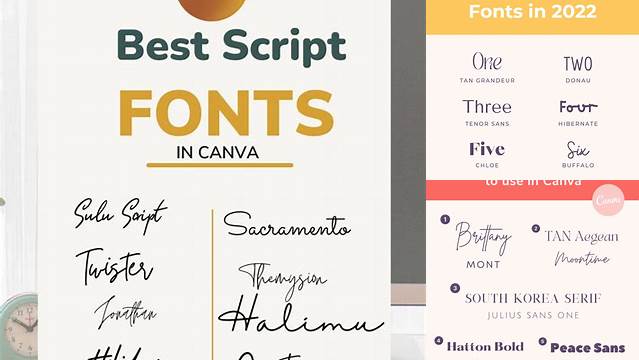
Download & Use Custom Fonts On Canva: A Simple Guide
Hey there, design enthusiasts! Ever wondered how to jazz up your Canva creations with unique fonts that scream you? Well, you're in the right place! Today, we're diving headfirst into the wonderful world of custom fonts on Canva. We'll cover everything from downloading fonts to seamlessly integrating them into your designs. So, grab your favorite beverage, get comfy, and let's unlock the secret to typographic awesomeness! Let's explore how to download fonts to use on Canva in a way that's super easy and fun.
H2: Understanding Custom Fonts: Why They Matter for Your Canva Designs
Alright, before we get our hands dirty with the actual how to download fonts to use on Canva process, let's chat about why custom fonts are such a big deal, yeah? Think of your brand, your personal style, or even just a cool project you're cooking up. Default fonts are like wearing the same basic tee as everyone else – fine, but not exactly making a statement. Custom fonts, on the other hand, are like that killer jacket that makes you stand out. They add personality, professionalism, and that special je ne sais quoi that elevates your designs from “meh” to “wow!”.
Custom fonts give you complete control over your typography. You're not limited to Canva's library (though, let's be real, it's pretty solid!). You can choose fonts that perfectly align with your brand's voice, the mood you want to create, or the specific aesthetic you're aiming for. Imagine a sleek, modern font for a tech company versus a whimsical, hand-drawn font for a children's brand. The right font choice speaks volumes before a single word is even read. It creates a cohesive experience, making your audience feel like they're getting the real you, your brand, or the project. Furthermore, using custom fonts can drastically improve your brand recognition. Consistent use of the same font across all your marketing materials – website, social media, presentations, and more – creates a visual identity that's instantly recognizable. This consistency builds trust and strengthens your brand's presence in the minds of your audience. So, when someone sees that specific font, they automatically think of you. That's the power of custom fonts.
Beyond branding, custom fonts also open up creative possibilities. You can use fonts to create visual hierarchies, emphasize important information, and guide the reader's eye. You can combine fonts to add layers of depth and interest to your design. Think about pairing a bold headline font with a clean body font to create a design that is both visually engaging and easily readable. It’s like creating a symphony where each font plays a unique role in the overall composition. Finally, custom fonts show that you care about details. It's a signal to your audience that you've put in the time and effort to create something special. It tells them that you're not just slapping together a design; you're crafting a visual experience. This attention to detail can make a huge difference in how your designs are perceived and remembered. So, whether you are a small business owner trying to leave a lasting impression, a social media enthusiast looking to stand out from the crowd, or a student working on a project, custom fonts are your secret weapon. They are how to download fonts to use on Canva and transform your designs from average to absolutely amazing.
H2: Finding Your Perfect Fonts: Where to Discover Downloadable Treasures
H3: Exploring Free Font Resources for Budget-Friendly Designs
For the budget-conscious designer or anyone looking to experiment without breaking the bank, free font resources are a lifesaver. Let's dive deeper into some of the best places to find these typographic gems, ensuring you have a treasure trove of options at your fingertips. Remember, knowing how to download fonts to use on Canva includes knowing where to get free resources!
Google Fonts, as mentioned earlier, is a must-visit. Its vast library is meticulously curated and constantly updated. With a user-friendly interface, you can easily browse by category, style, and even language support. The fonts are web-optimized, ensuring they look great across various devices. The best part? They're 100% free and open-source. Another gem is Font Squirrel. Their mission is simple: to offer high-quality, free fonts that are licensed for commercial use. This means you can use these fonts for any project, including client work and business ventures, without worrying about licensing restrictions. They carefully vet each font, so you can be confident in their quality and usability. Then we have DaFont. This is a long-standing favorite for many, with a massive collection of fonts covering a wide range of styles. You'll find everything from basic sans-serifs to highly decorative fonts. While most fonts are free for personal use, always check the license before using them commercially. Keep an eye out for any limitations!
Beyond these popular sites, explore resources like 1001 Free Fonts. As the name suggests, they offer a vast collection of free fonts. They also have a good search function, which makes it easy to find the font you're looking for. Always remember, when using free fonts, it's crucial to review the license terms. Some fonts may be free for personal use, but require a license for commercial purposes. Be mindful of the terms to avoid any copyright issues. Consider the overall aesthetic of your designs. Are you aiming for a clean, modern look or a more vintage, hand-drawn vibe? The choice of font plays a huge role in conveying that feeling. Experiment with different fonts to find the perfect fit for your project, or the perfect way how to download fonts to use on Canva.
Each font you download comes with a license that outlines the terms of use. This license is the agreement between the font designer and you, the user. It specifies what you can and cannot do with the font. Reading the license is the first step. The license will tell you what usage is permitted. Is it for personal use only, commercial use, or both? Can you use it on social media, websites, or printed materials? The license will often specify the permitted uses. Understand the different types of licenses. The license might say